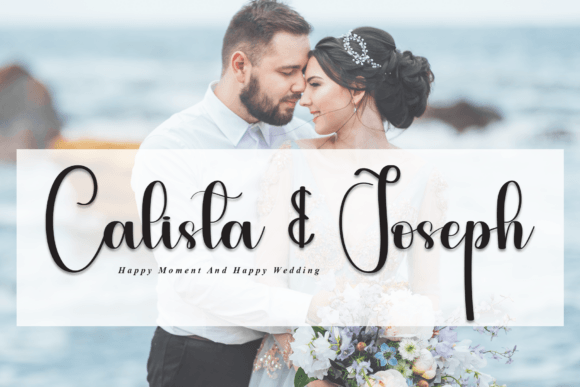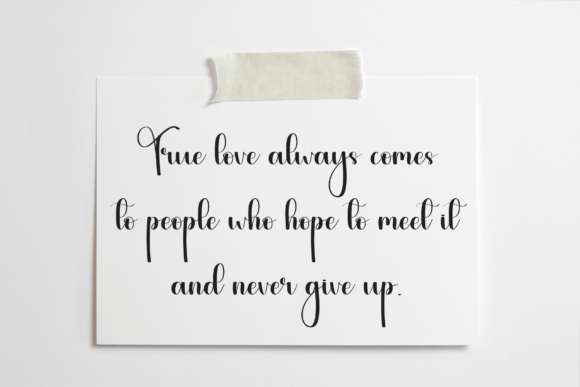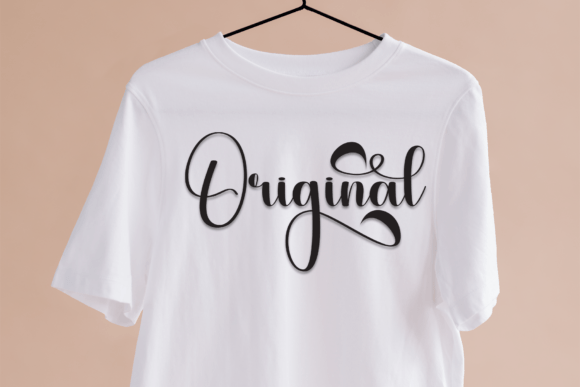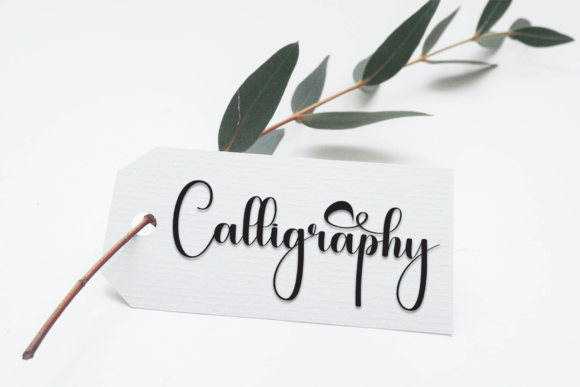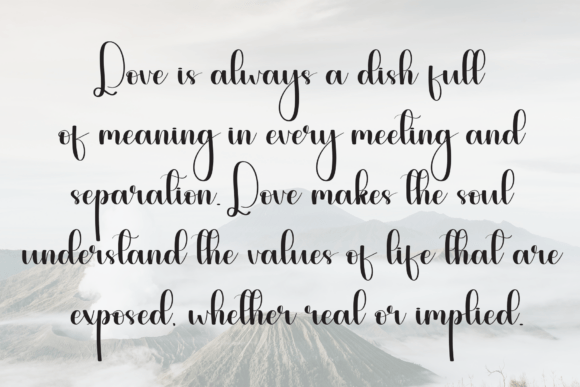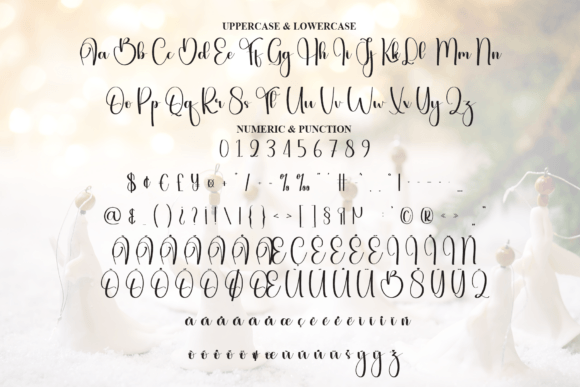
Introduction to Christmas Angela Font
As designers, we’ve all been there – staring at a blank canvas, eager to bring our creative vision to life. And then, like a breath of fresh air, the perfect font appears, infusing our project with the perfect tone and personality. For those looking to add a dash of whimsy and warmth to their designs, we’re thrilled to introduce the Christmas Angela Font – a charming and personable handwritten display font that’s sure to delight.
With its delightful and playful charm, the Christmas Angela Font is a versatile design resource that’s perfect for crafting wedding invitations, brightening greeting cards, or adding a sprinkle of fun to any design project. Its high quality design and transparent background make it an ideal choice for designers seeking a reliable and stylish font for their creative projects.
Key Features of Christmas Angela Font
- High-quality design resource ideal for creative projects, such as holiday greeting cards and gift tags.
- Features a transparent background, allowing for seamless integration into various design compositions.
- Unique, hand-drawn design with a whimsical feel, perfect for adding a touch of personality to your Christmas-themed projects.
Honest Review: Christmas Angela Font
As a designer, I’m always on the lookout for high-quality design resources to enhance my creative projects. The Christmas Angela Font is one such resource that caught my attention.
Here are some things that work well: ✨ It’s a free download, making it an excellent addition to any design project without breaking the bank. The font is a beautiful, elegant script font that’s perfect for creating a festive atmosphere. The transparent background makes it easy to use in a variety of design contexts.
However, there are a few limitations to keep in mind: ⚠️ The font is limited to a single style, which may not be suitable for projects requiring multiple font styles. Additionally, the font may not be as versatile as some other script fonts on the market.
Overall, I’m impressed with the Christmas Angela Font. Its elegant design and transparent background make it an excellent choice for any design project requiring a festive touch. While it may have some limitations, it’s a valuable resource that’s definitely worth considering for your next creative project.
The Christmas Angela Font is a high-quality design resource perfect for creative projects that require a touch of festive charm. This beautiful font features a transparent background, making it easy to combine with other design elements.
The Christmas Angela Font is perfect for a variety of use cases, including:
- Christmas card designs
- Holiday party invitations
- Winter-themed social media graphics